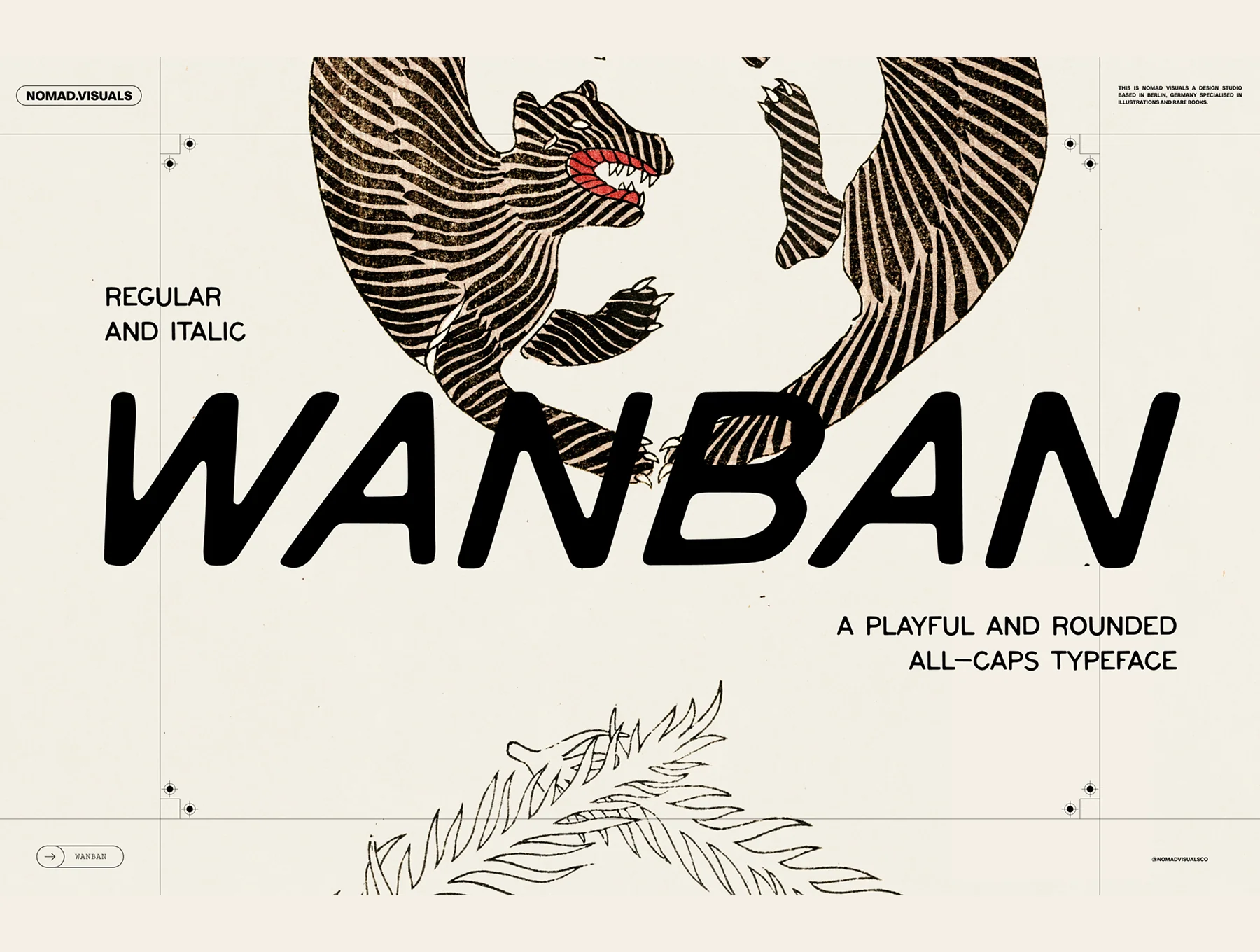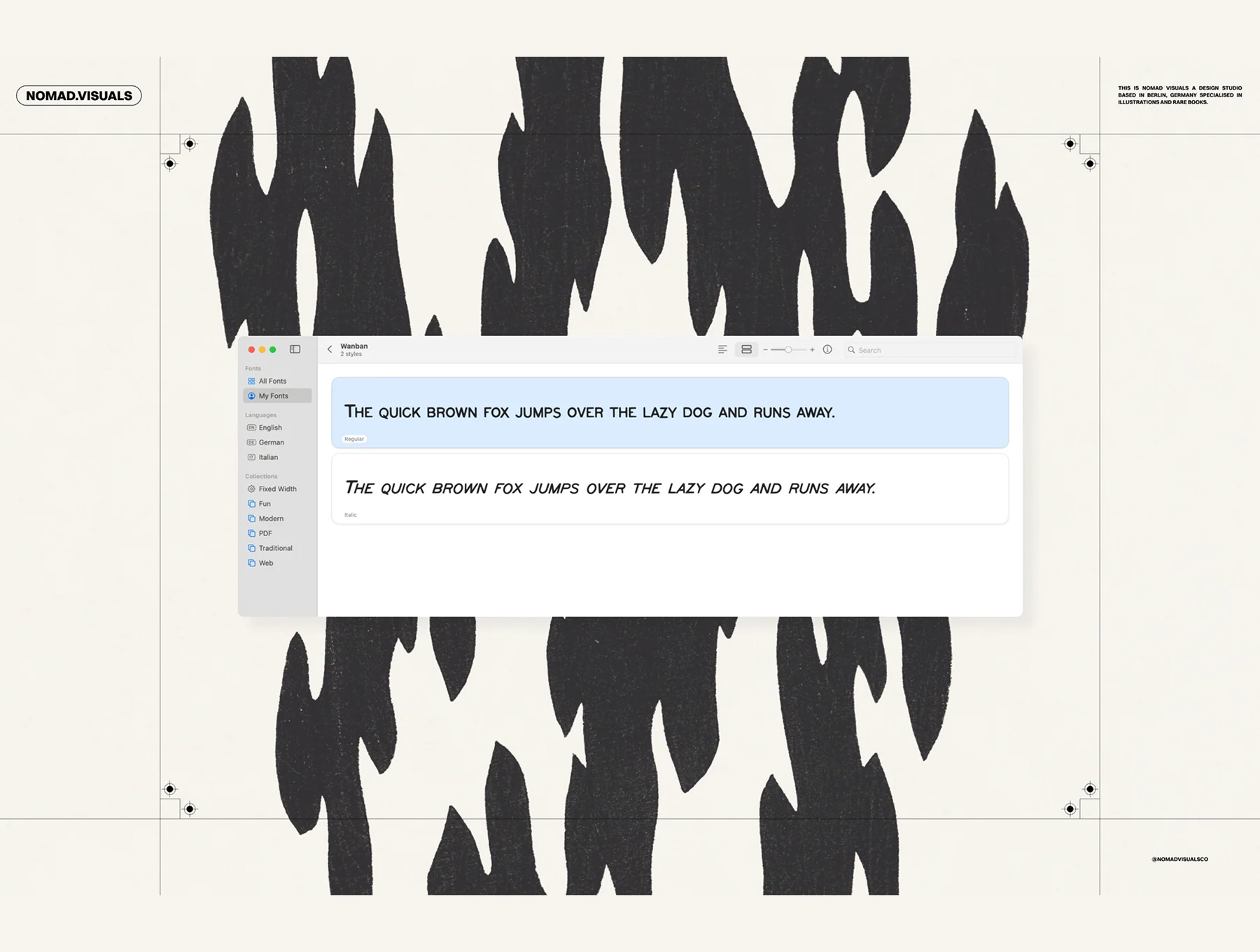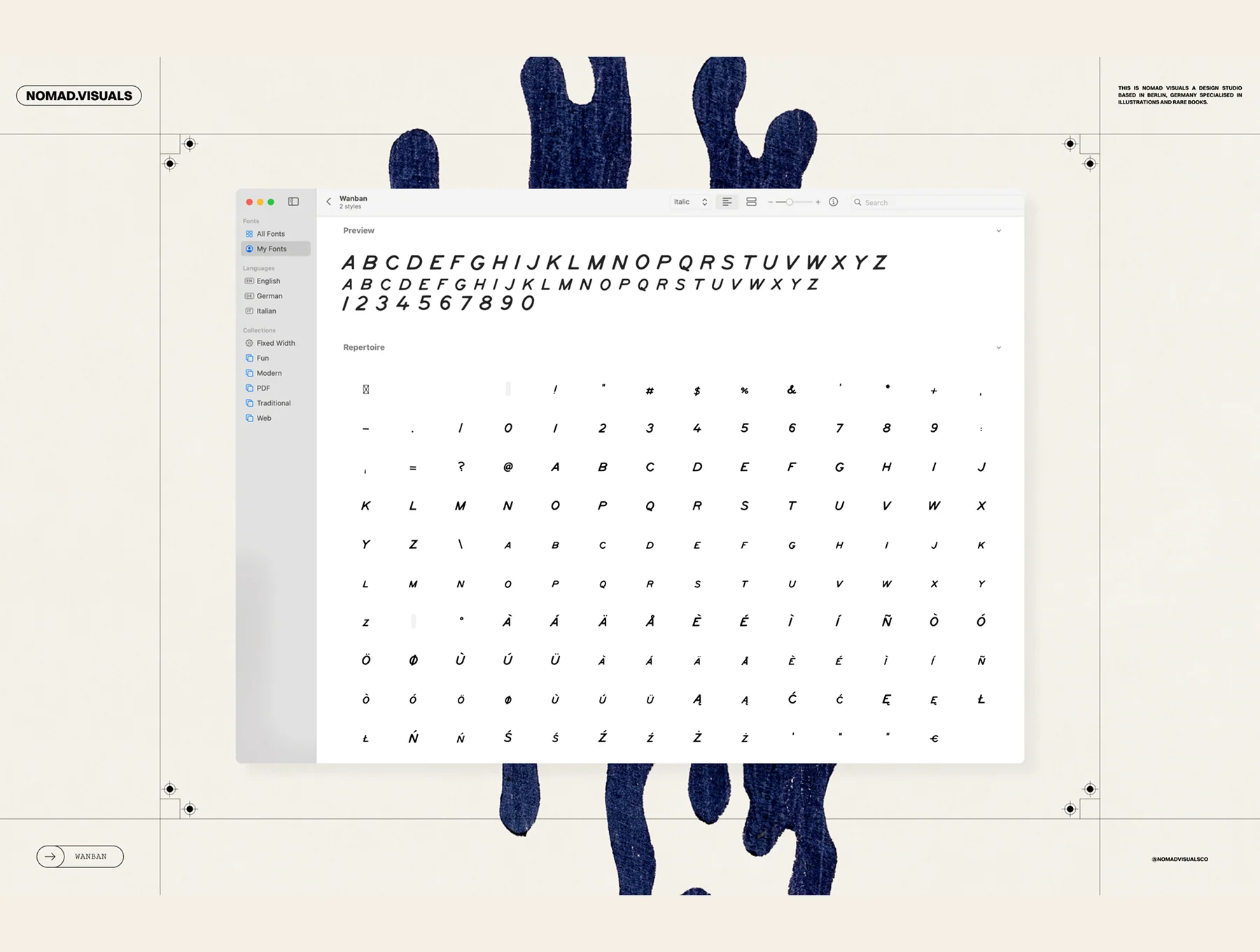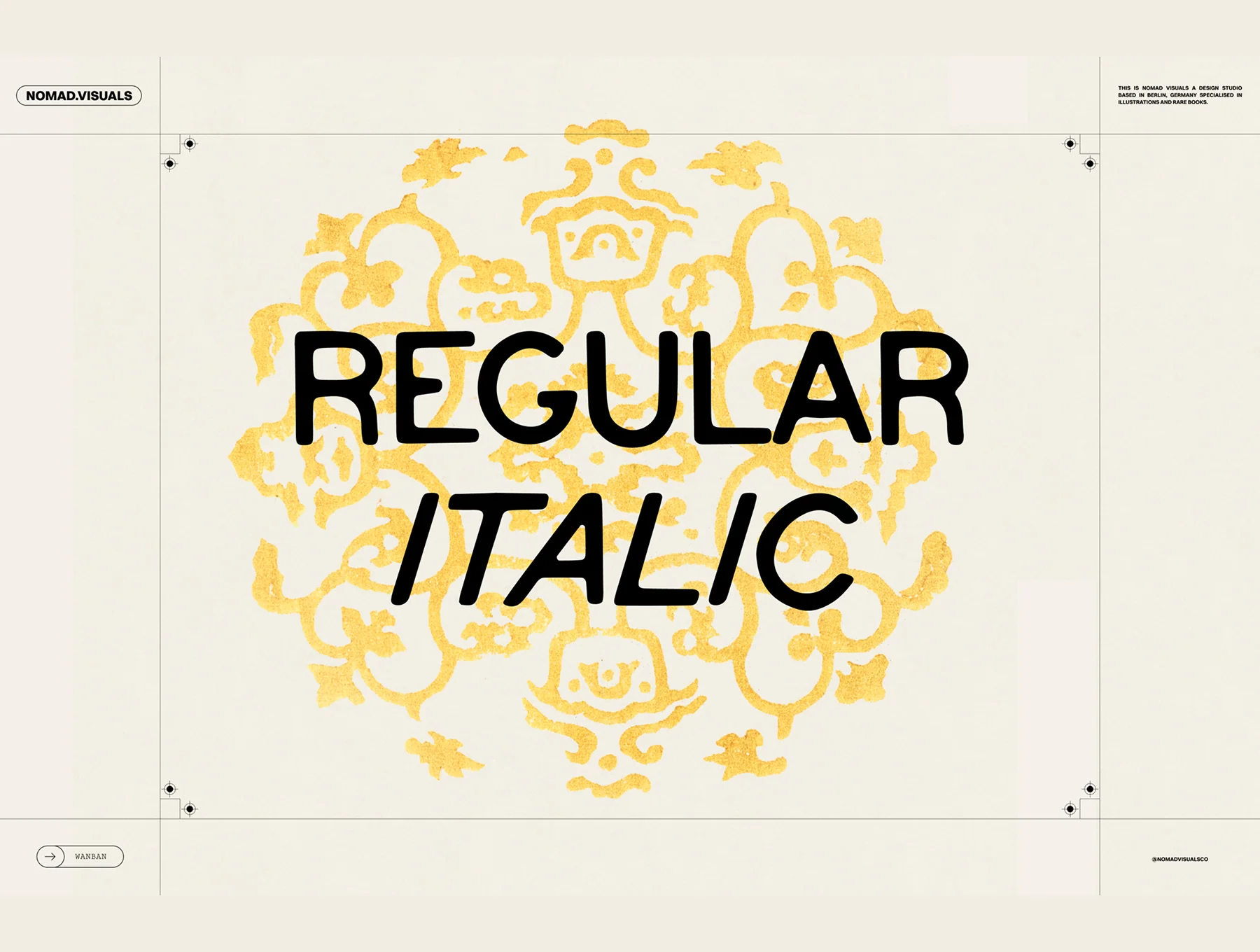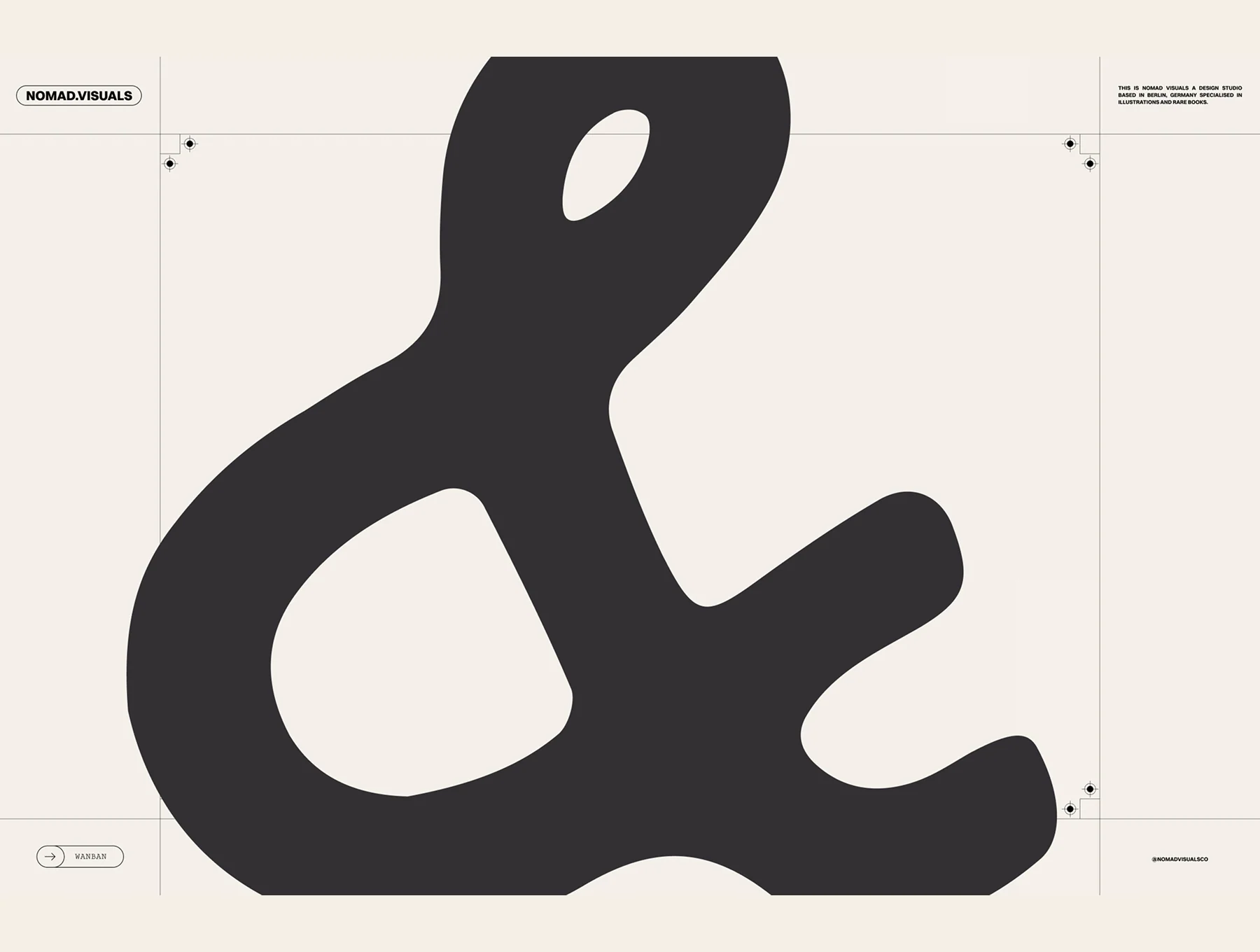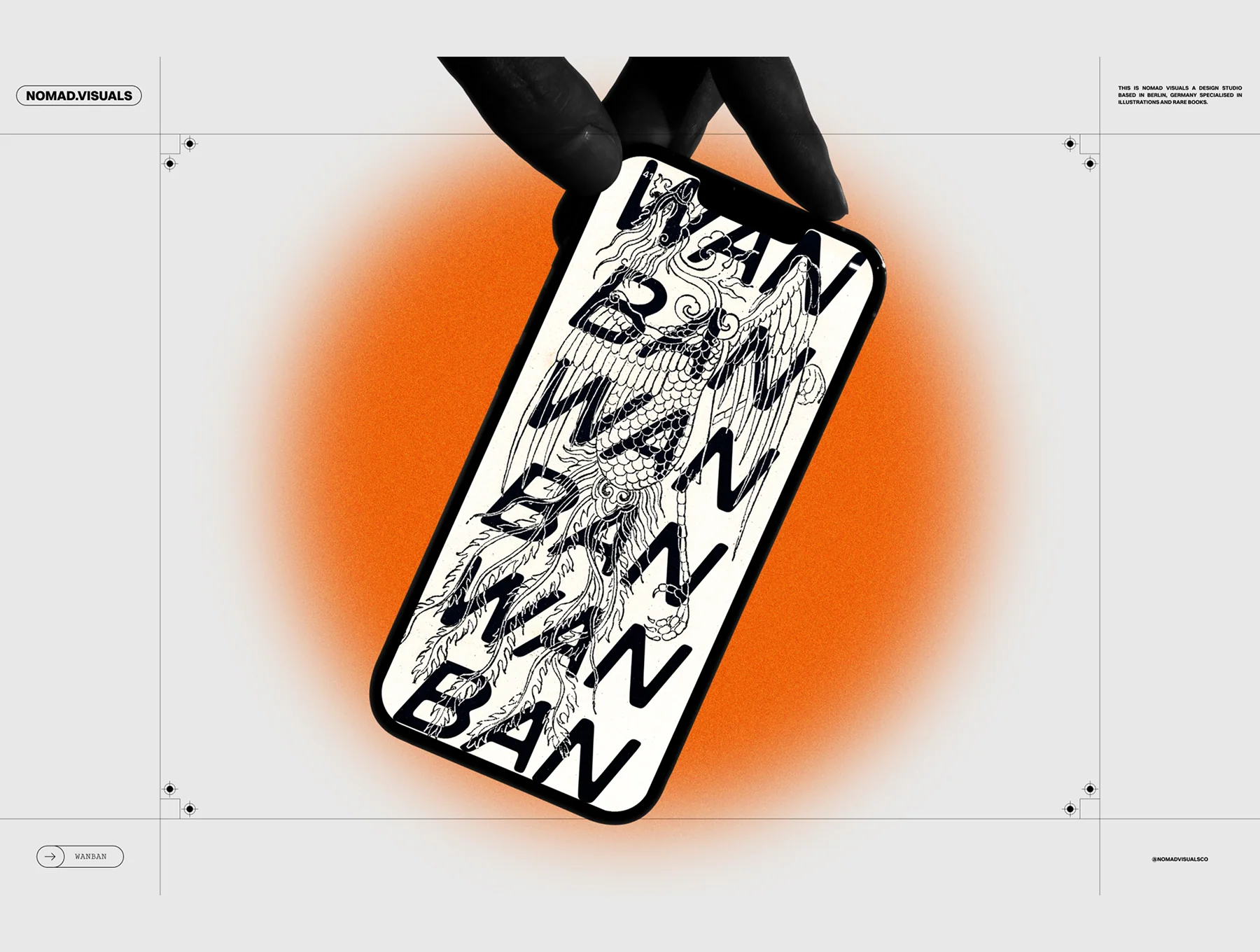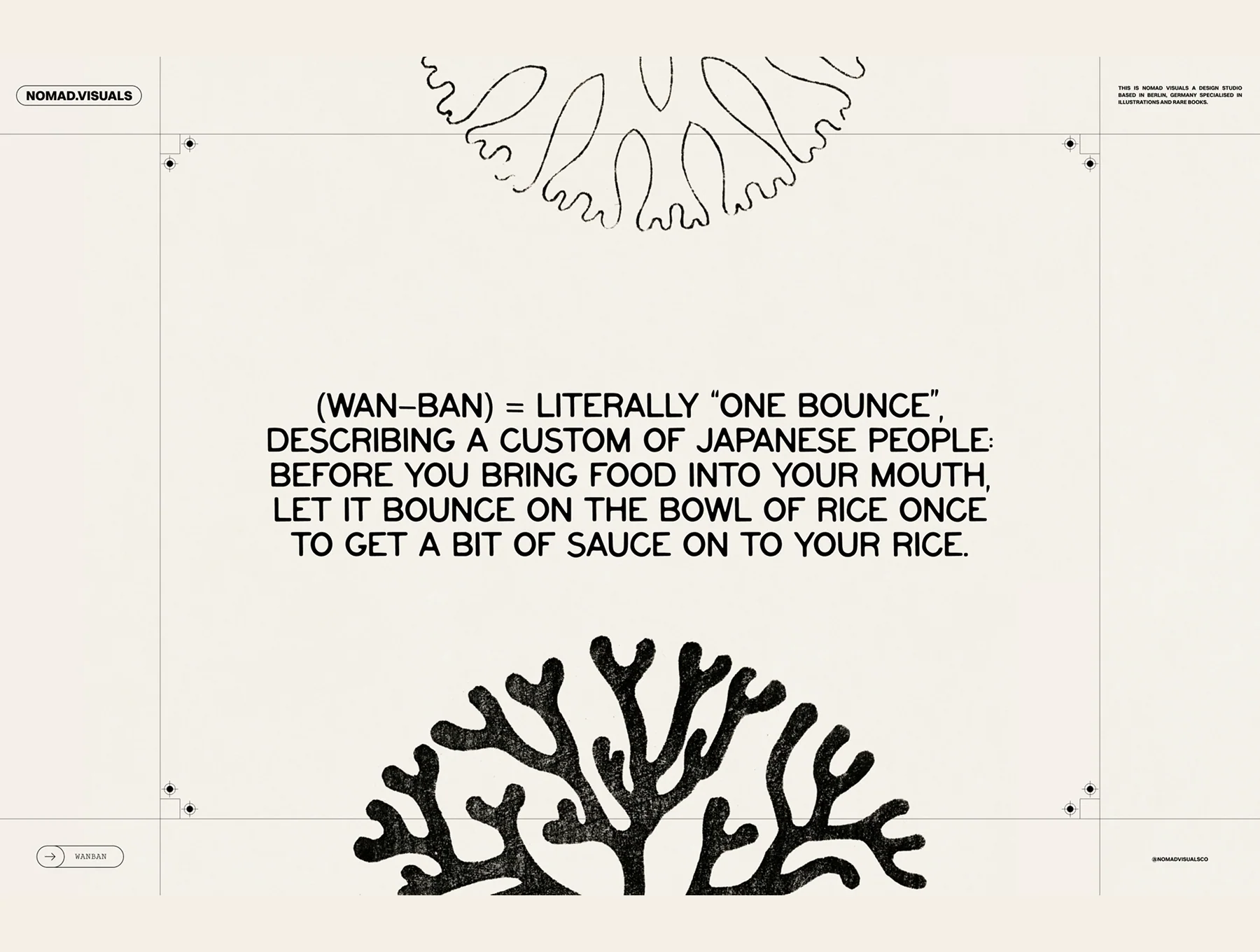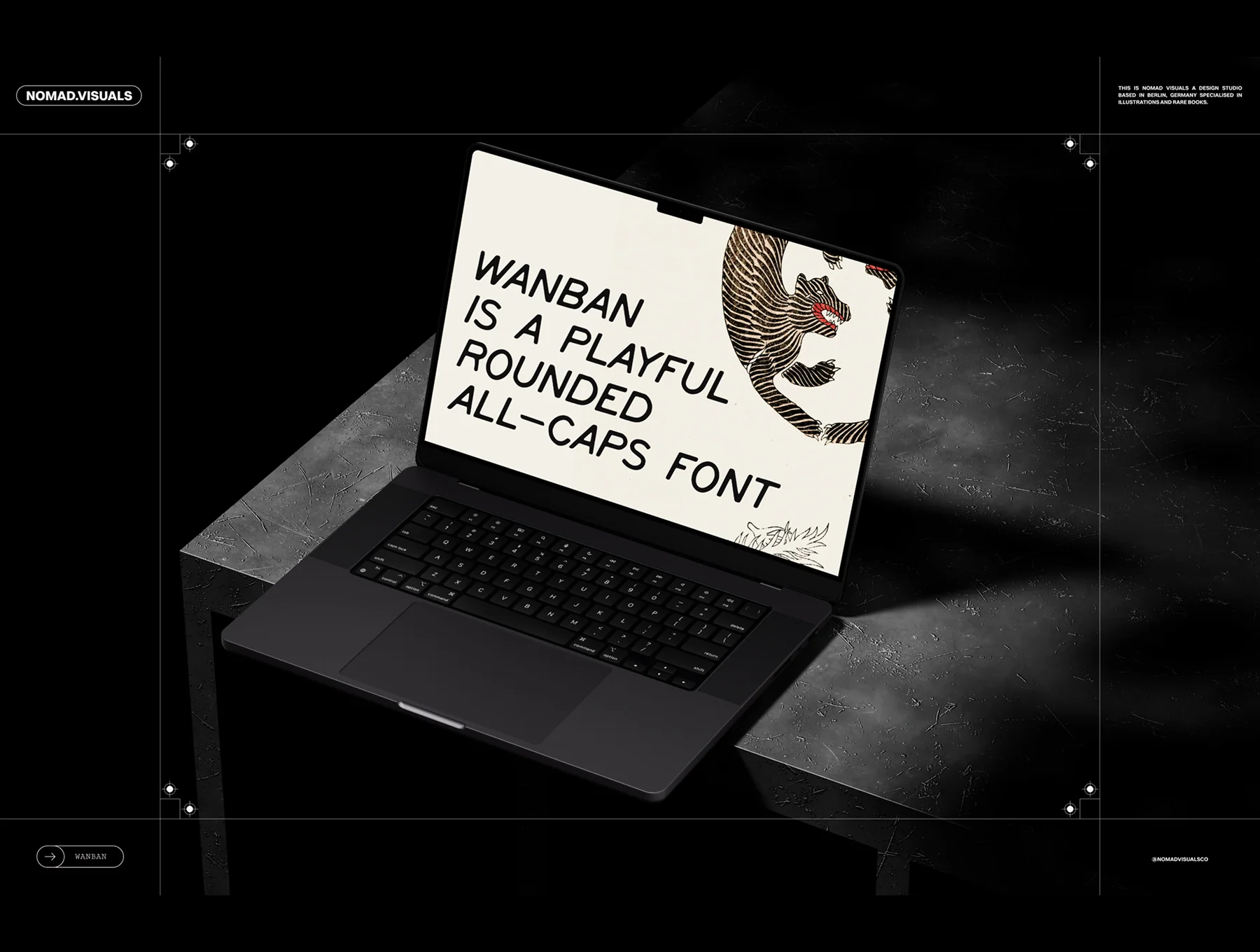
Wanban – Playful Rounded All-Caps Typeface (Regular + Italic)
Warm uppercase font featuring soft curves and a hand-sketched feel
Cheerful uppercase lettering with gently rounded corners
Standard style
Slanted italic style
Includes numerals and punctuation
Wanban is a soft, rounded uppercase typeface with a friendly hand-drawn charm, suited to logos, packaging, posters, branding, and online designs. It comes in Regular and Italic, with capitals, numerals, punctuation, and broad accented language support. Supplied as OTF, TTF, WOFF2, and EOT files.